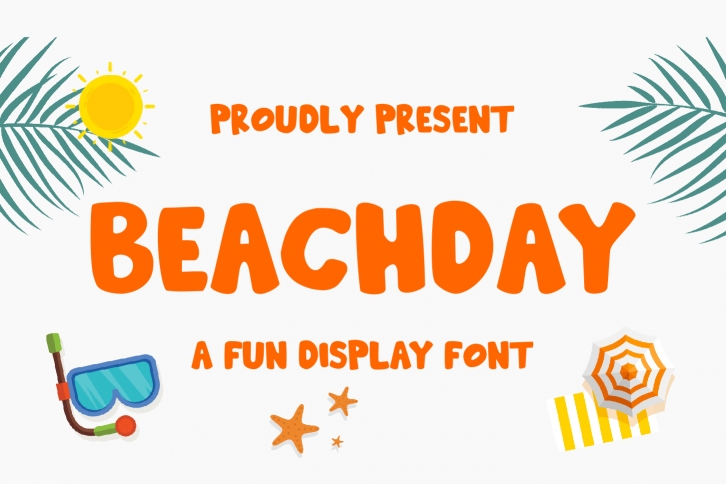
Beachday - Fun Display Font Download
Beachday is a beautiful font that was designed by Rahagita Studio. It's a great choice for designers and creatives who need such a font. It was released on January 4, 2020 and the file size is 18.5 MB. Beachday may give a more youthful, expressive and casual look to your project. It is a very beautiful, refined, elegant, and high-quality font.